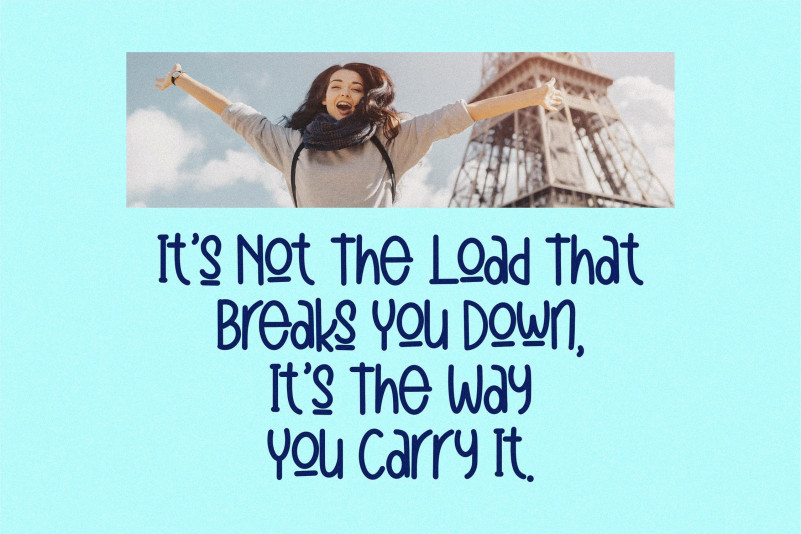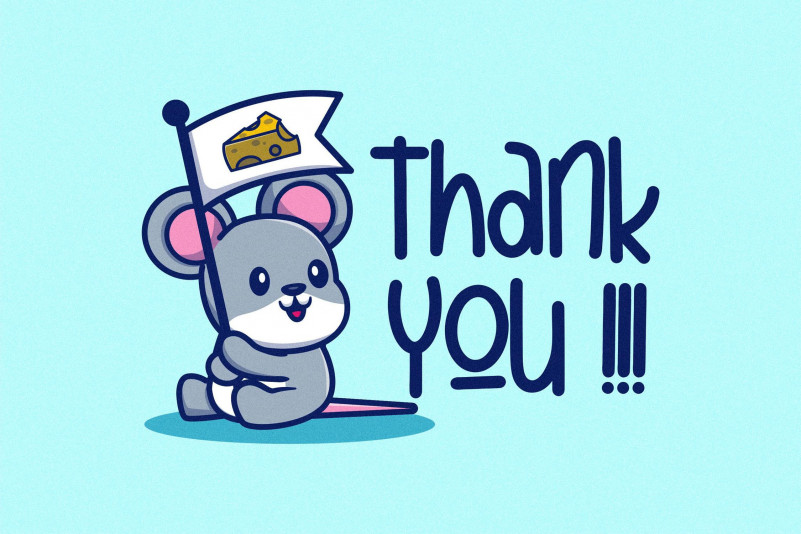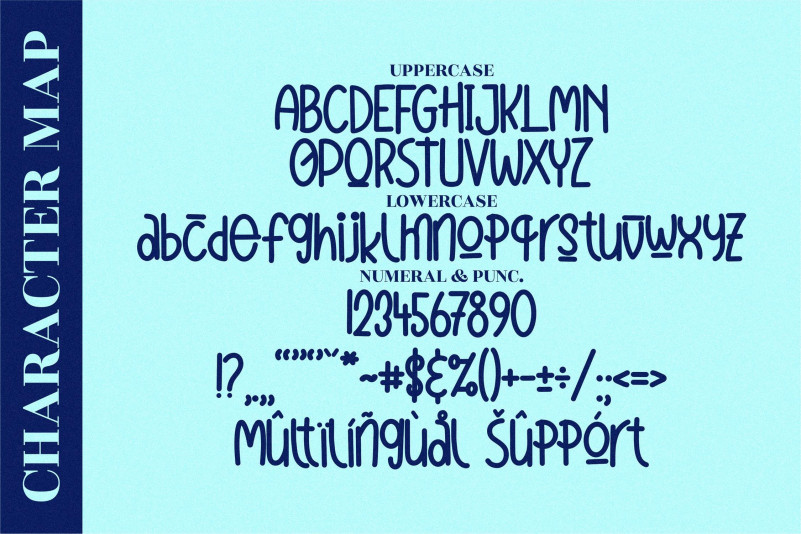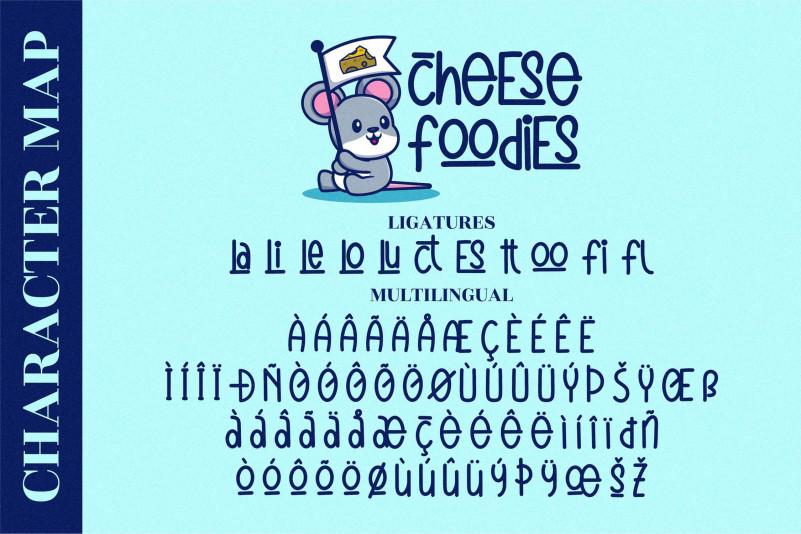
Cheese Foodies Font
Cheese Foodies Display Font
This is a simple, fun and a bit quirky handwritten font. Whether you use it for cartoon related designs, children games or just any creation that requires a lovely touch, this font will be an amazing choice.